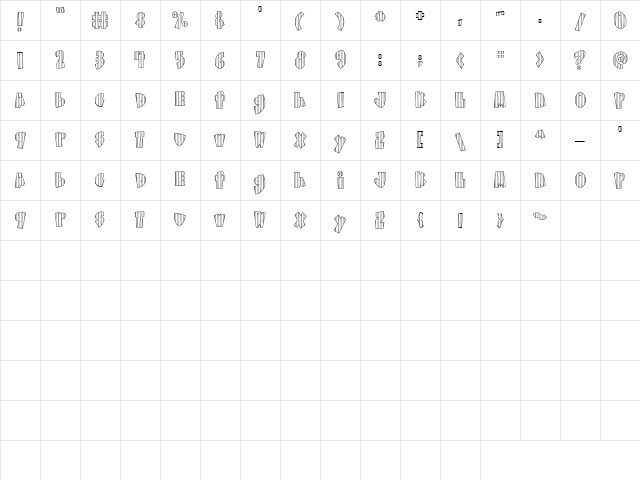
Doodle Baseball Regular Font Preview
Doodle Baseball Regular
Design Context for Doodle Baseball Typeface
Doodle Baseball is a composed and adaptable typeface that performs quietly and consistently across a wide range of design contexts.